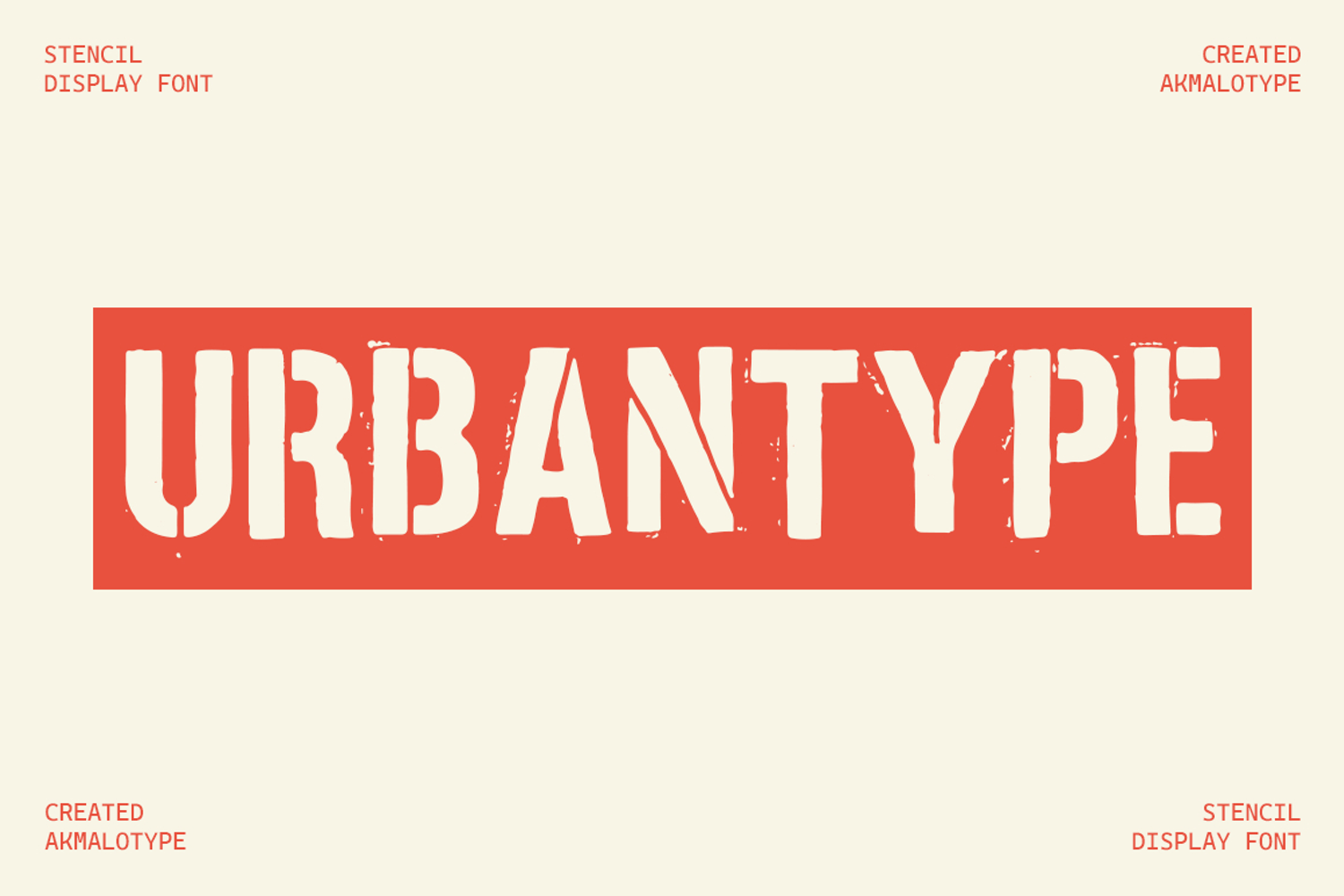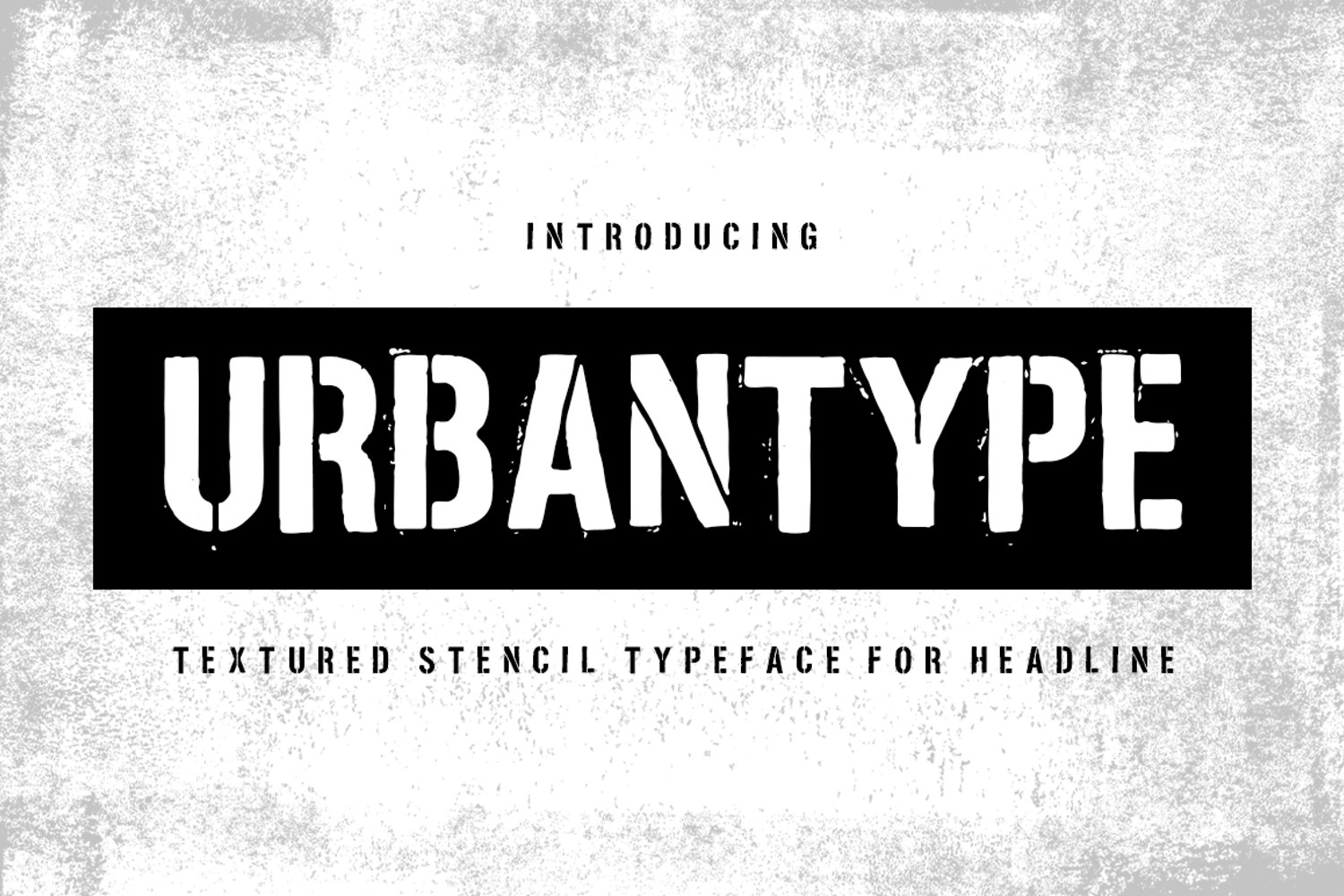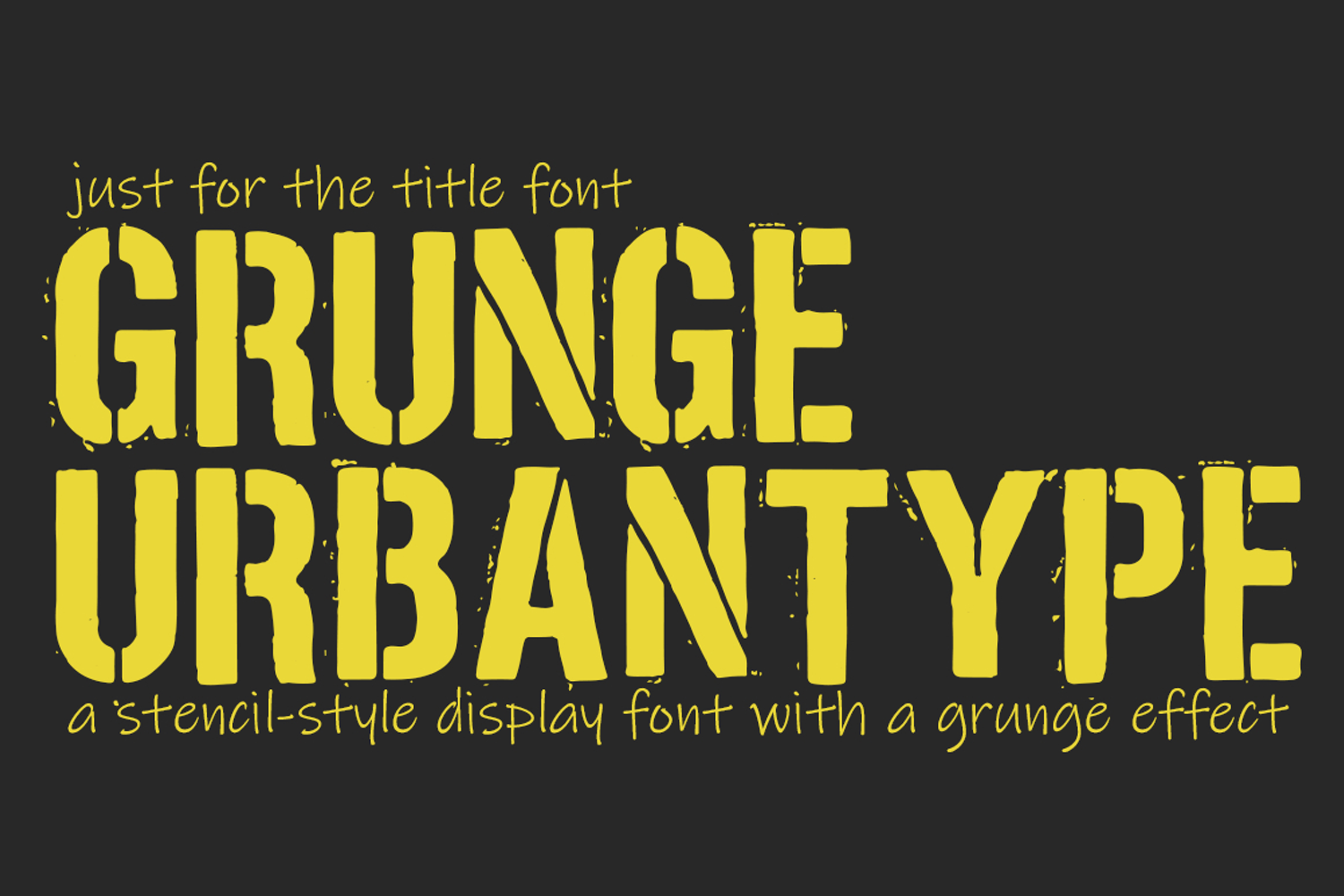
Urbantype Font - Grunge Effect
Urbantype
URBANTYPE is a stencil-style display font with a grunge effect that gives a strong, urban, and industrial feel. It’s best suited for headlines, posters, or branding that aims to look bold and full of character.